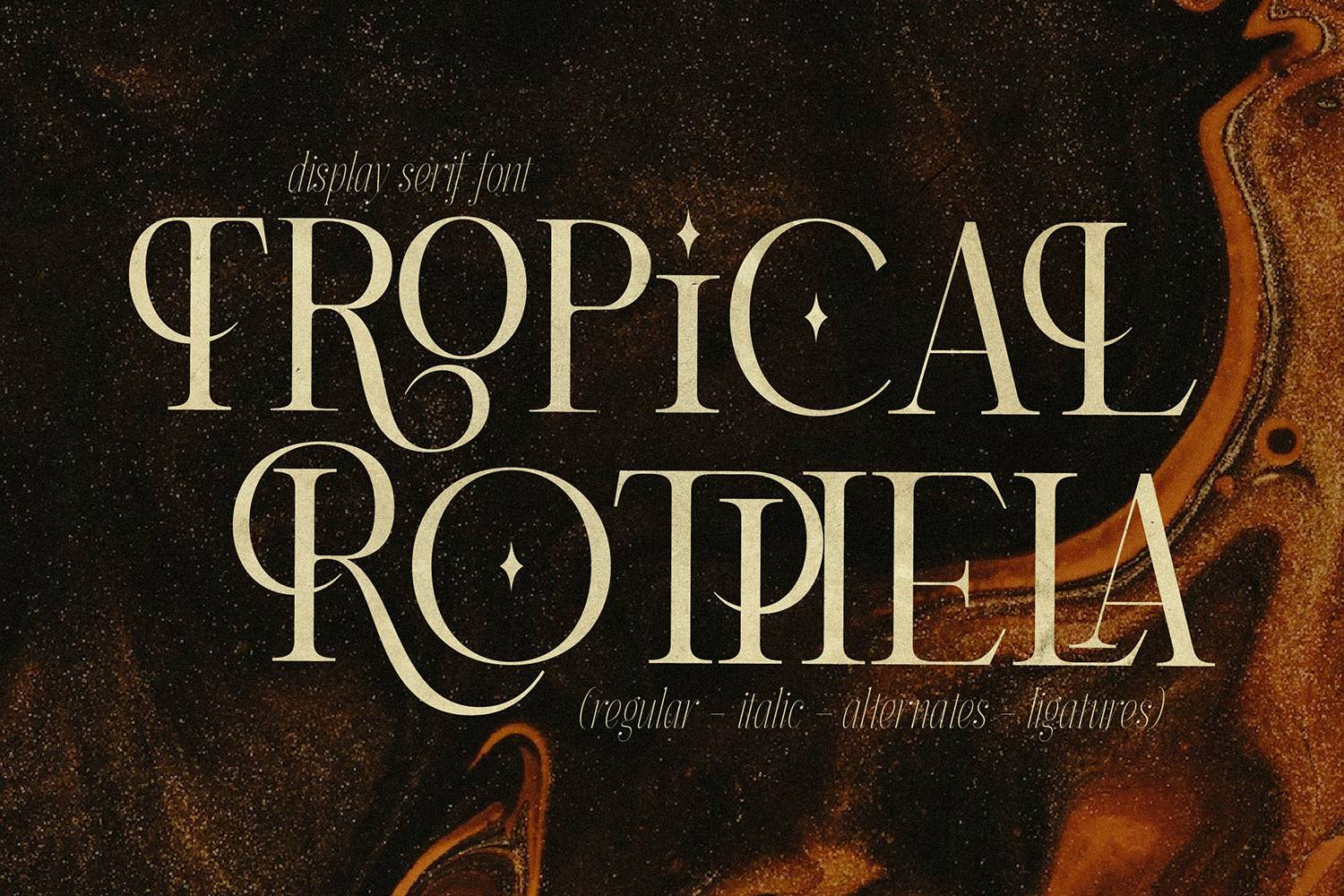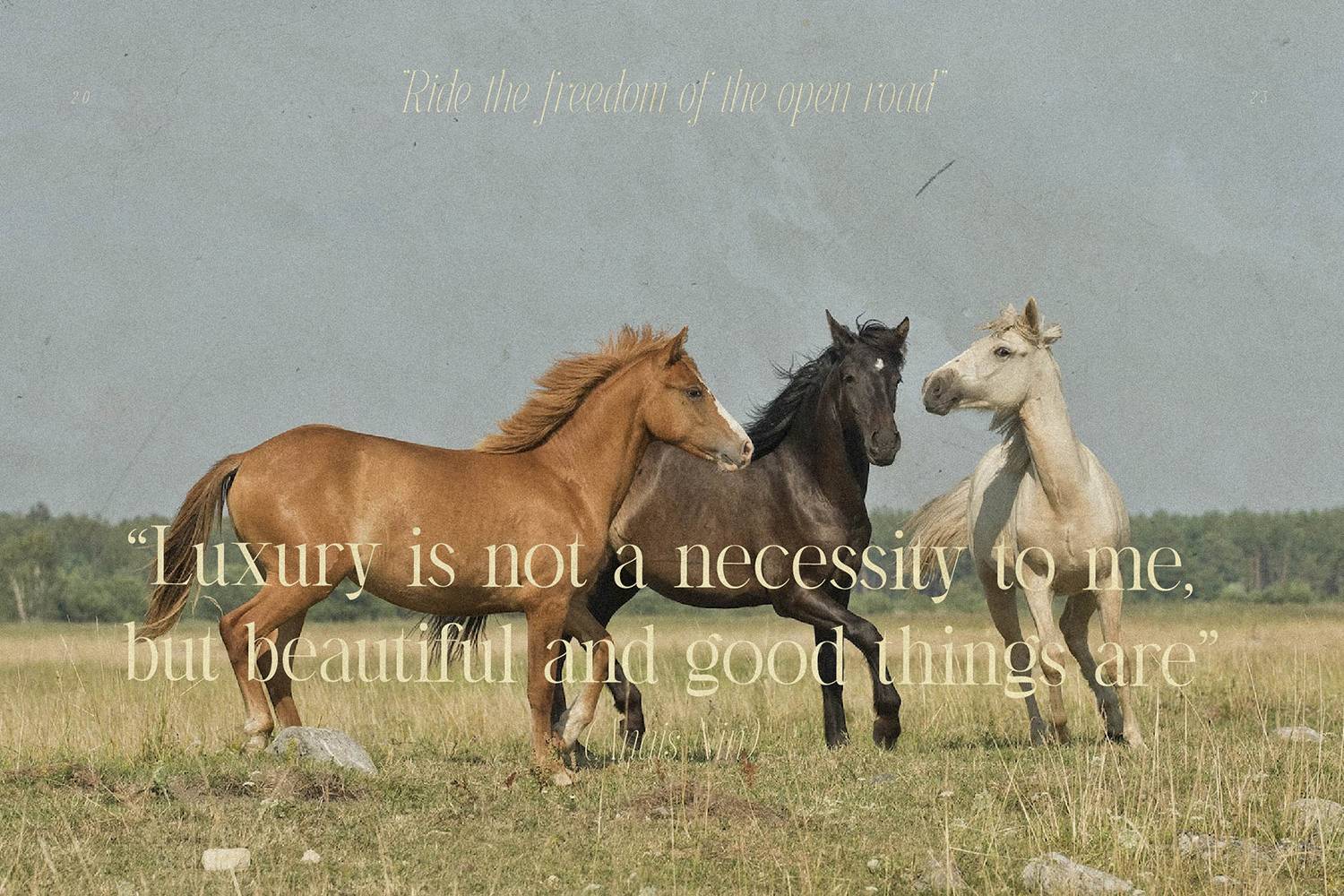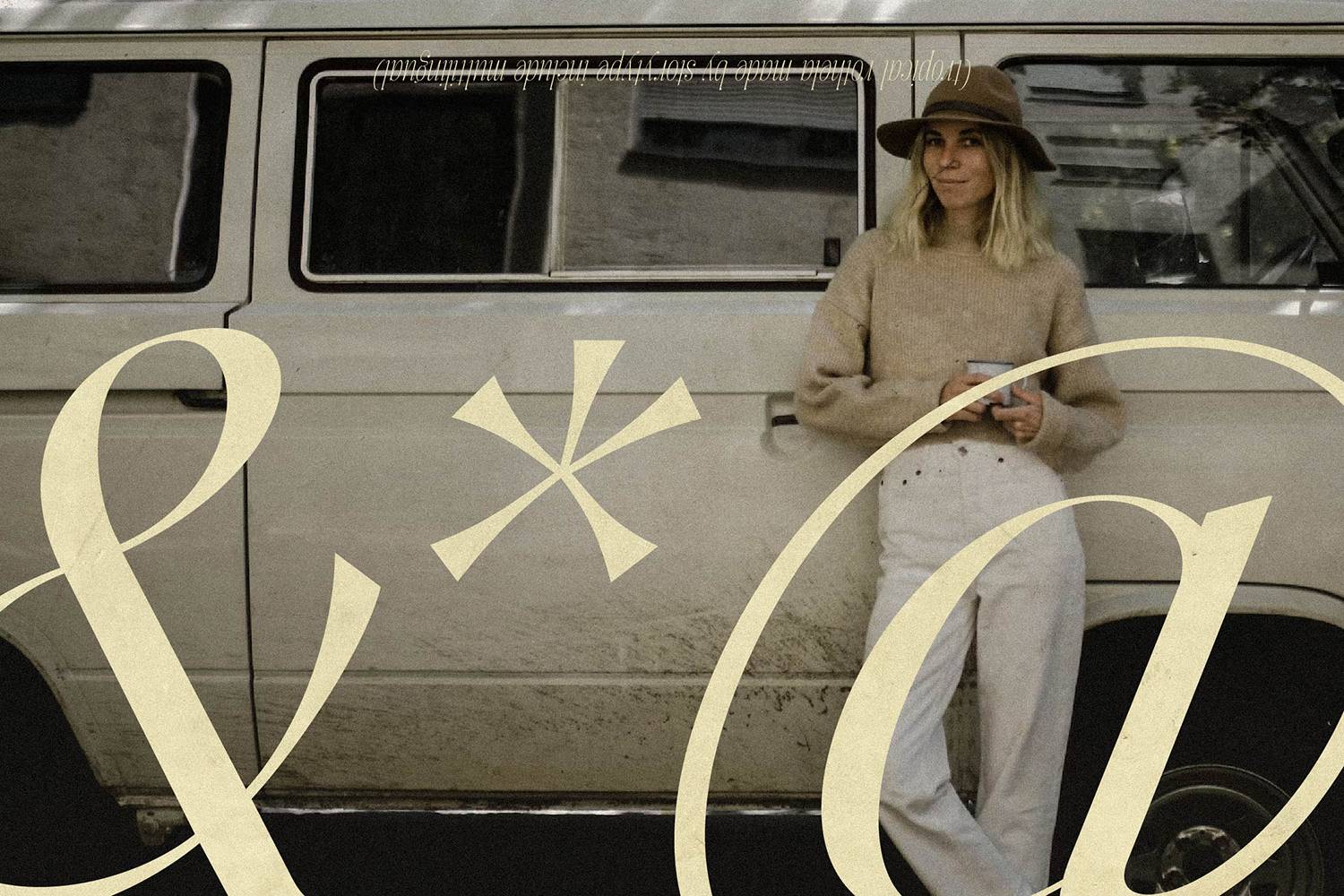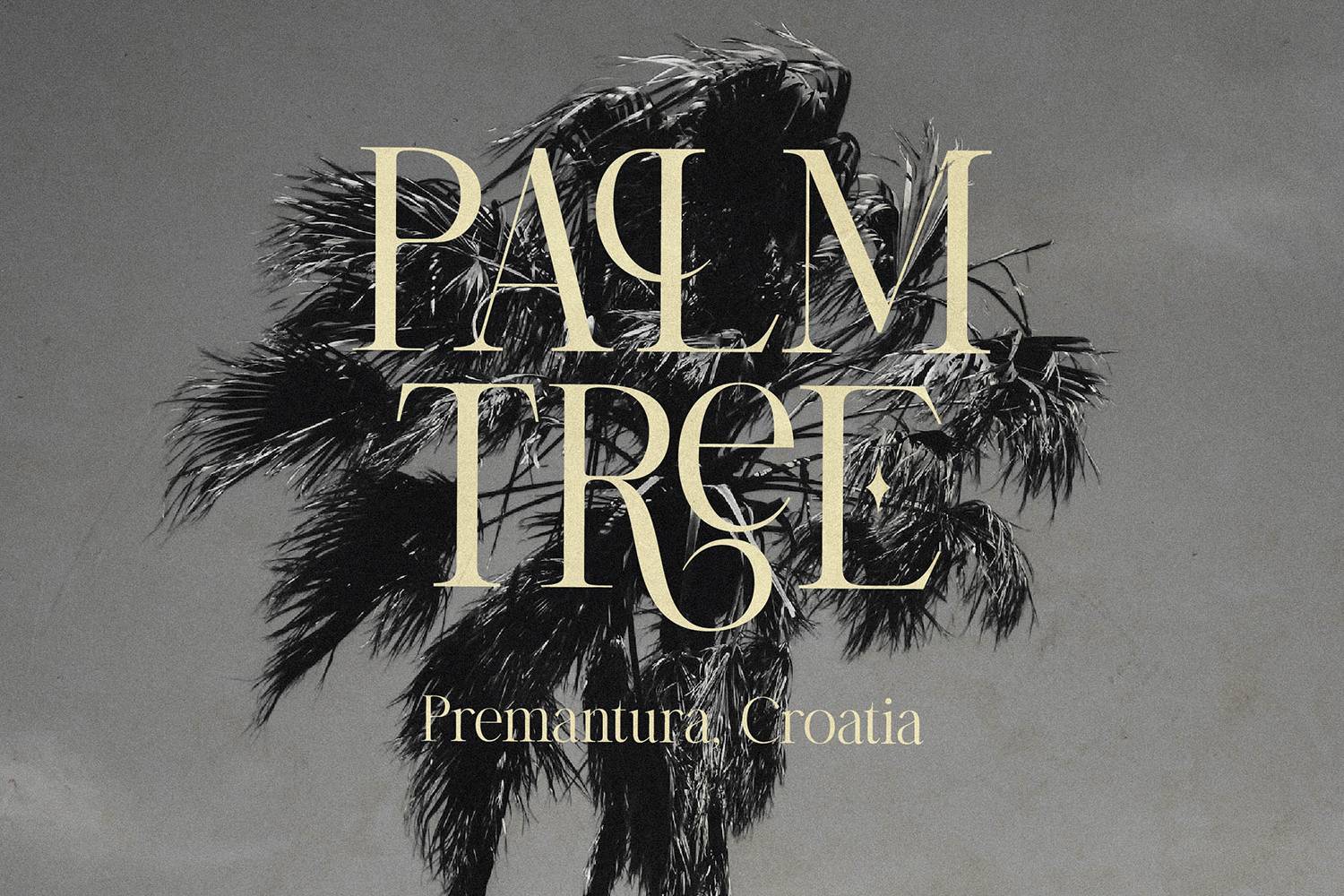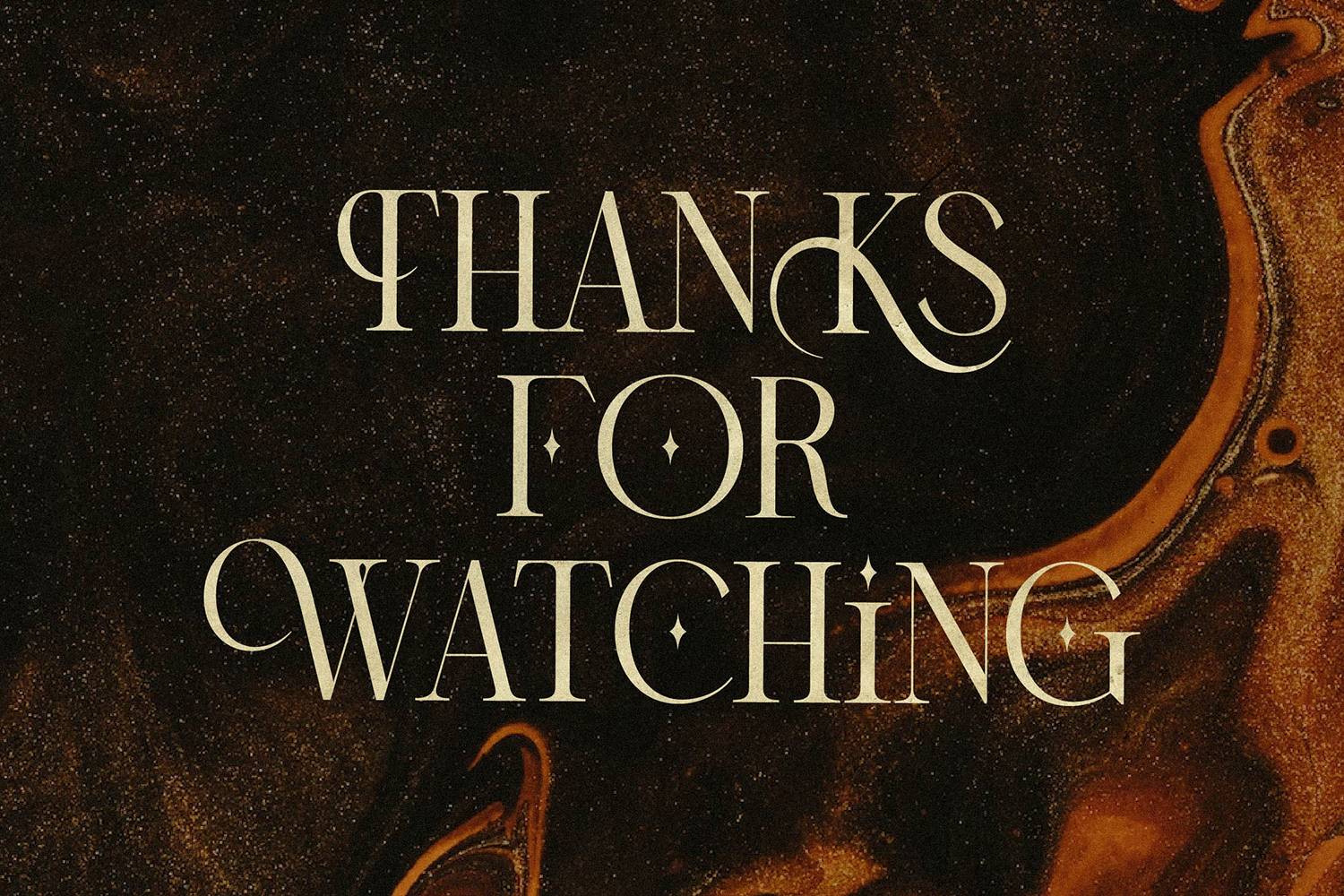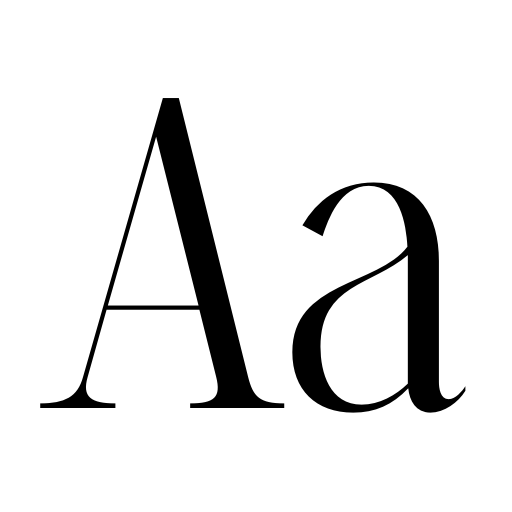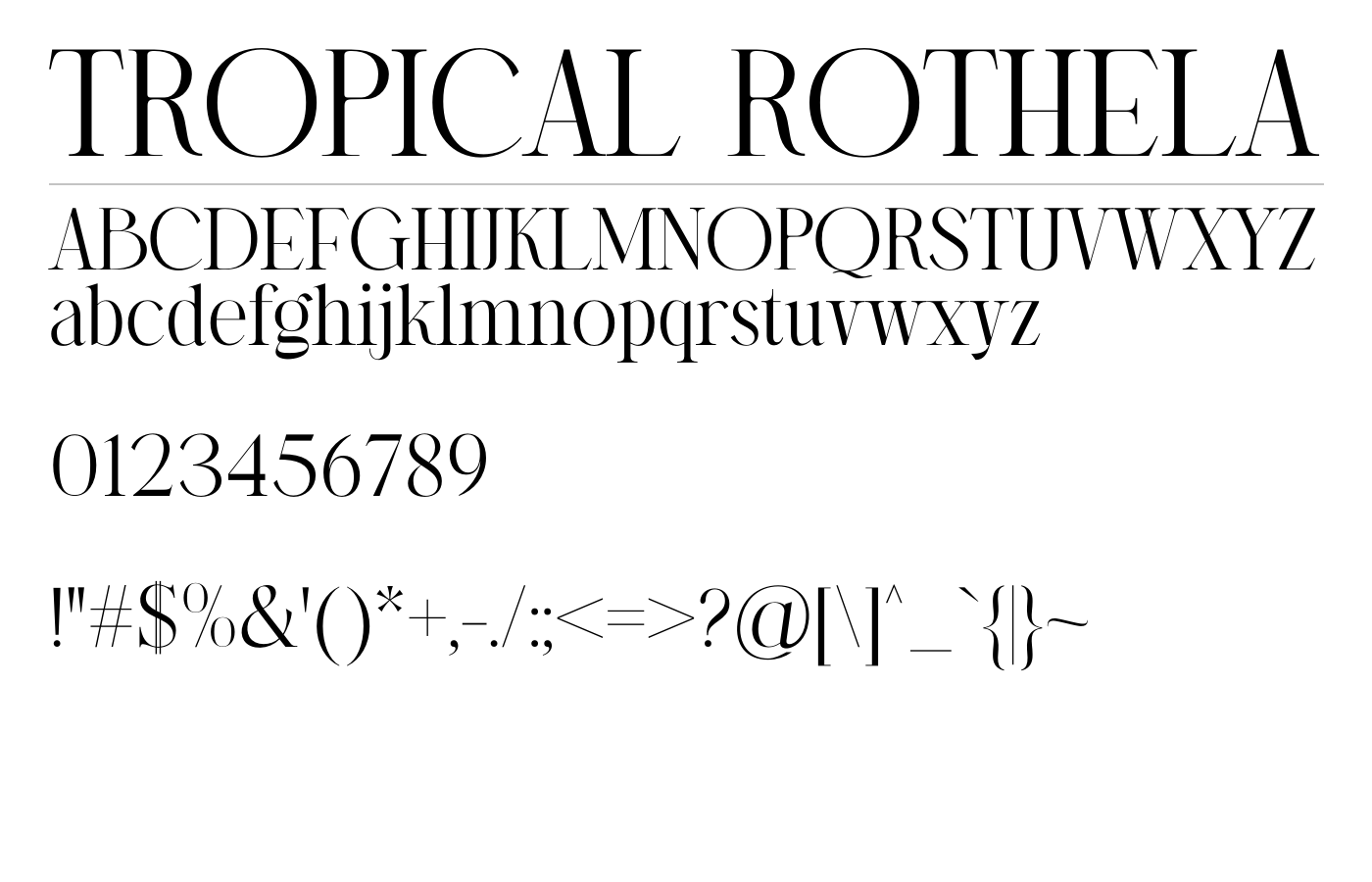
Tropical Rothela is an elegant serif font with a refined, high-contrast design that features slender, bracketed serifs and tall, graceful letterforms. Its sophisticated style, with delicate thin strokes and distinctive shapes like the single-story 'a' and unique ampersand, makes it ideal for luxury branding, editorial headlines, and fashion packaging where a modern yet classic feel is desired. This font shines in upscale contexts, adding a touch of timeless beauty and finesse to any design.
Tropical Rothela Font
About Tropical Rothela Font
| Font family | Tropical Rothela Font |